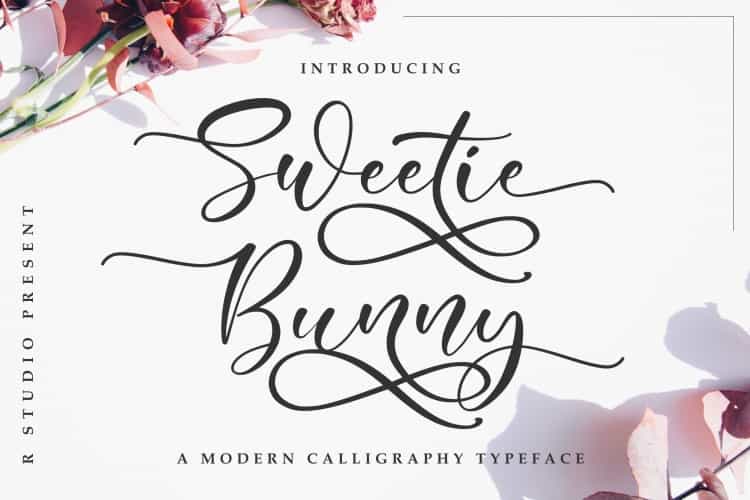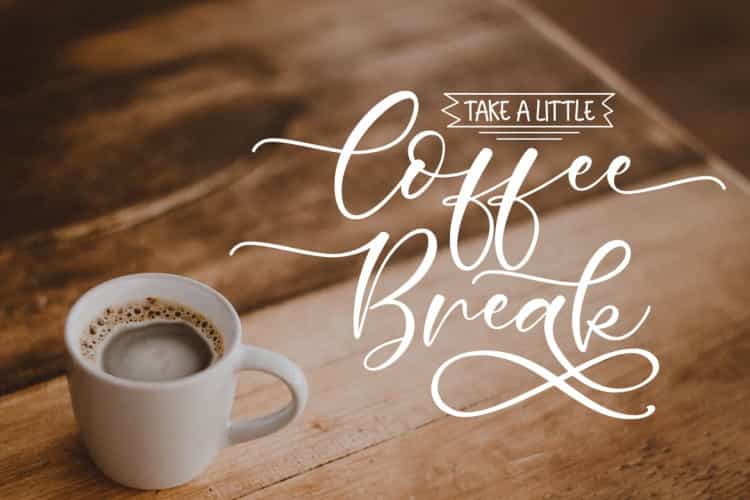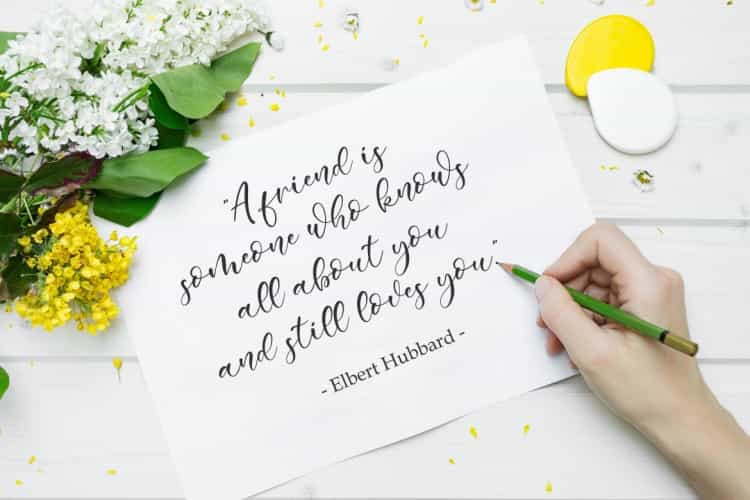
Sweetie Bunny Font is not your regular typeface script but it has personality. It was designed as well as possible to make the aesthetics of your design as appealing as possible. It can be used as a logo, badge, packaging, title, poster, t-shirt / clothing, cards and gifting, wedding invitations, etc.